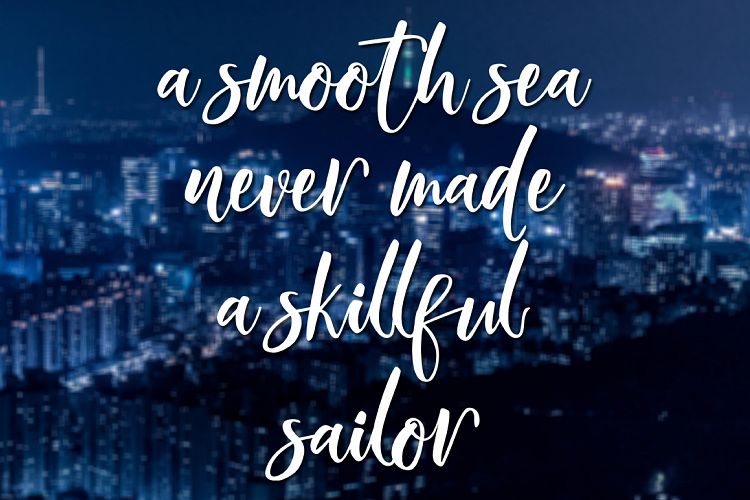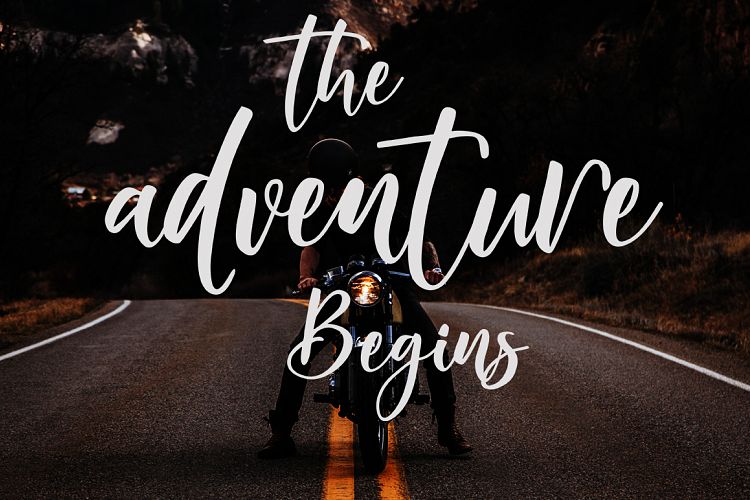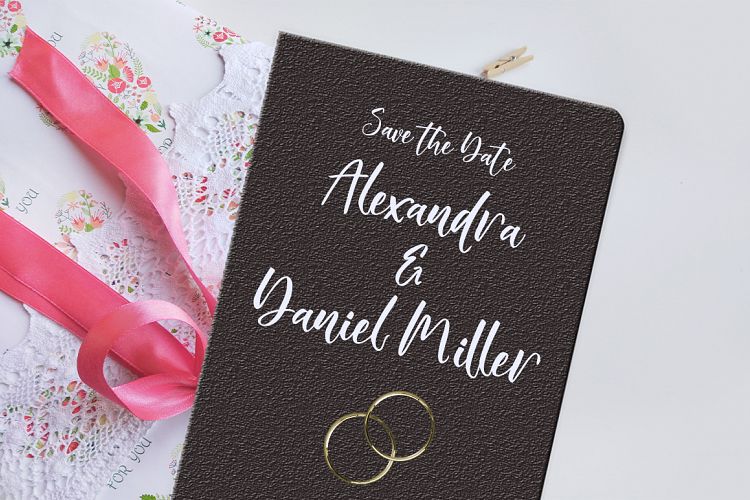
Wild Smith Modern Script Font
This is a playful script handwritten font with imperfectly perfect edges. With a full suite of uppercase and lowercase letters, It’s can be used in many style contexts and design environments. Introducing Wild Smith Script Font. It is was designed by Lucky Type. WildSmith Script is a new modern script font with an irregular baseline. Trendy and feminine style.Wild Smith looks lovely on wedding invitations, thank you cards, quotes, greeting cards, logos, business cards and more. Perfect for using in ink or watercolour. Including initial and terminal letters, alternates, ligatures and multiple language support.